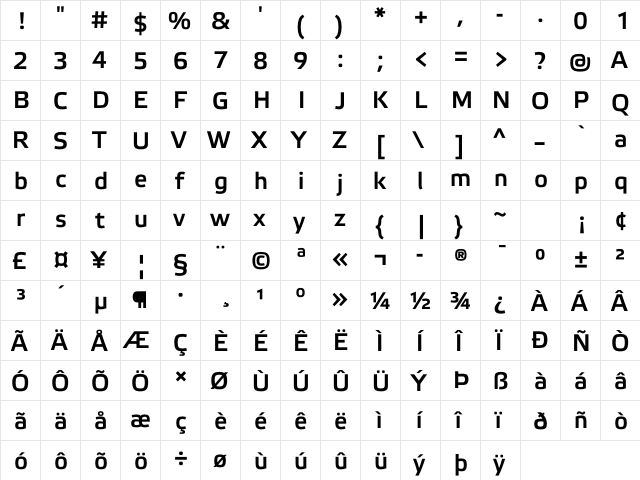
Elektra Medium Pro Regular
| Designer | Frantisek Storm |
Design Context for Elektra Medium Pro Typeface
Elektra Medium Pro offers clean, dependable letterforms without strong stylistic allegiance, making it a practical choice for designers who need flexibility.
Pro Tip: Pair Elektra Medium Pro with a font of contrasting weight or personality to build a more expressive typographic hierarchy.